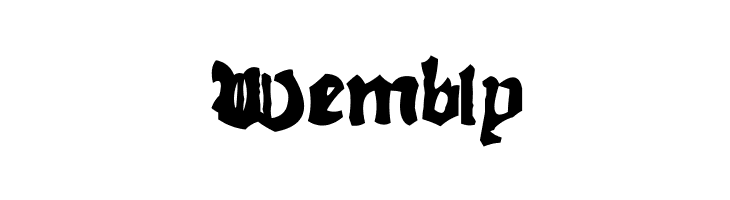
Latina Font
- Font: Latina
( Fonts by Eliot Truelove - eliottruelove.blogspot.com )
A bold, gothic-inspired font with sharp, angular edges and a dramatic flair.